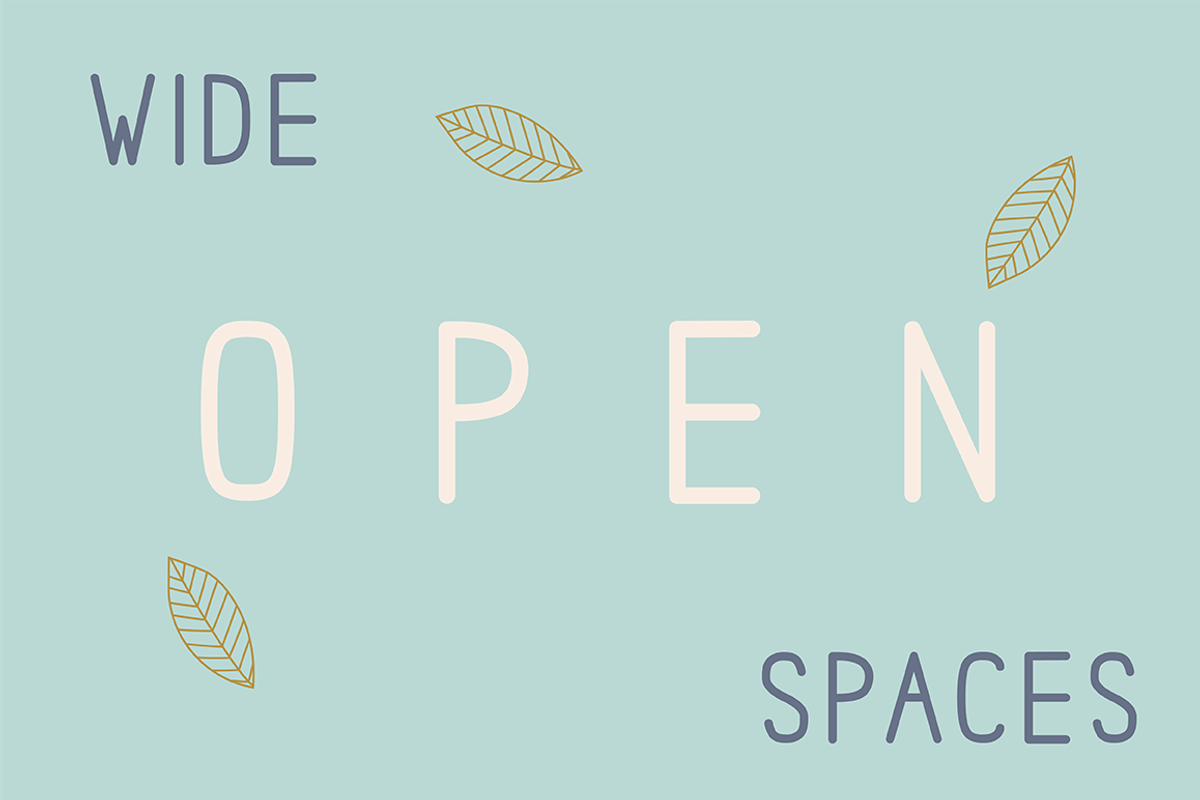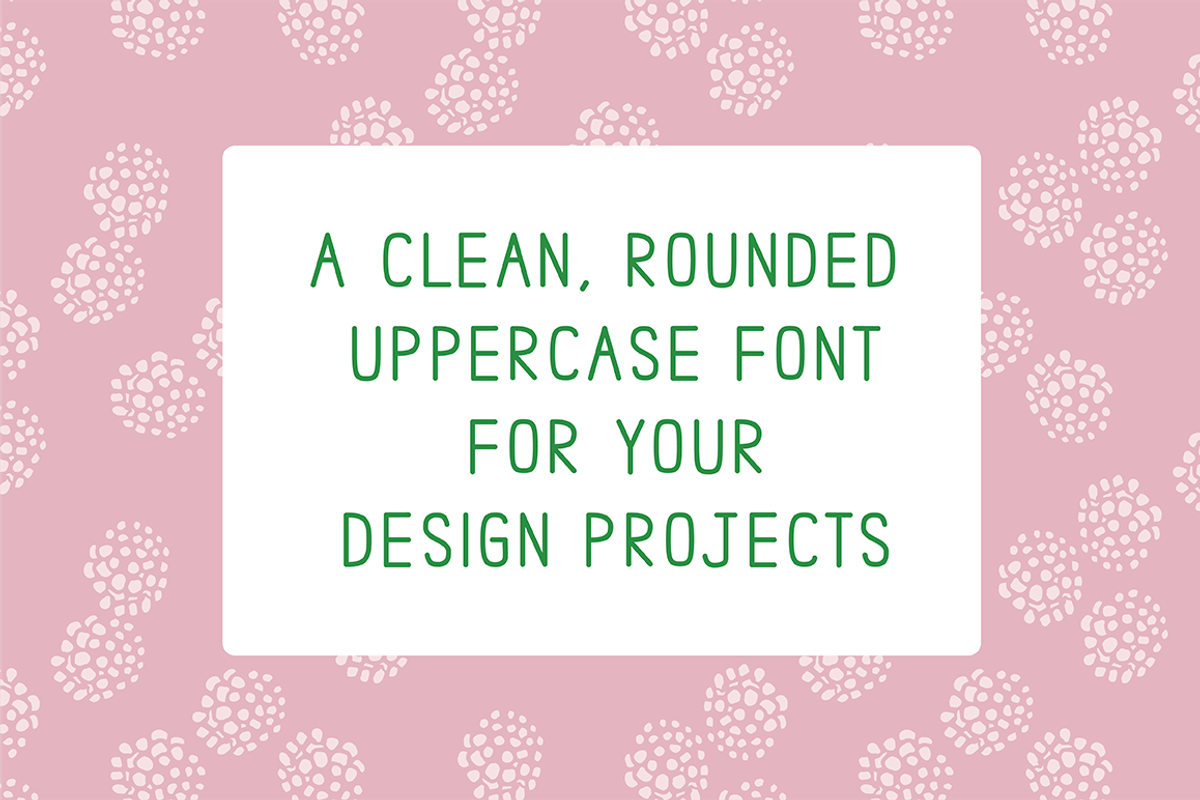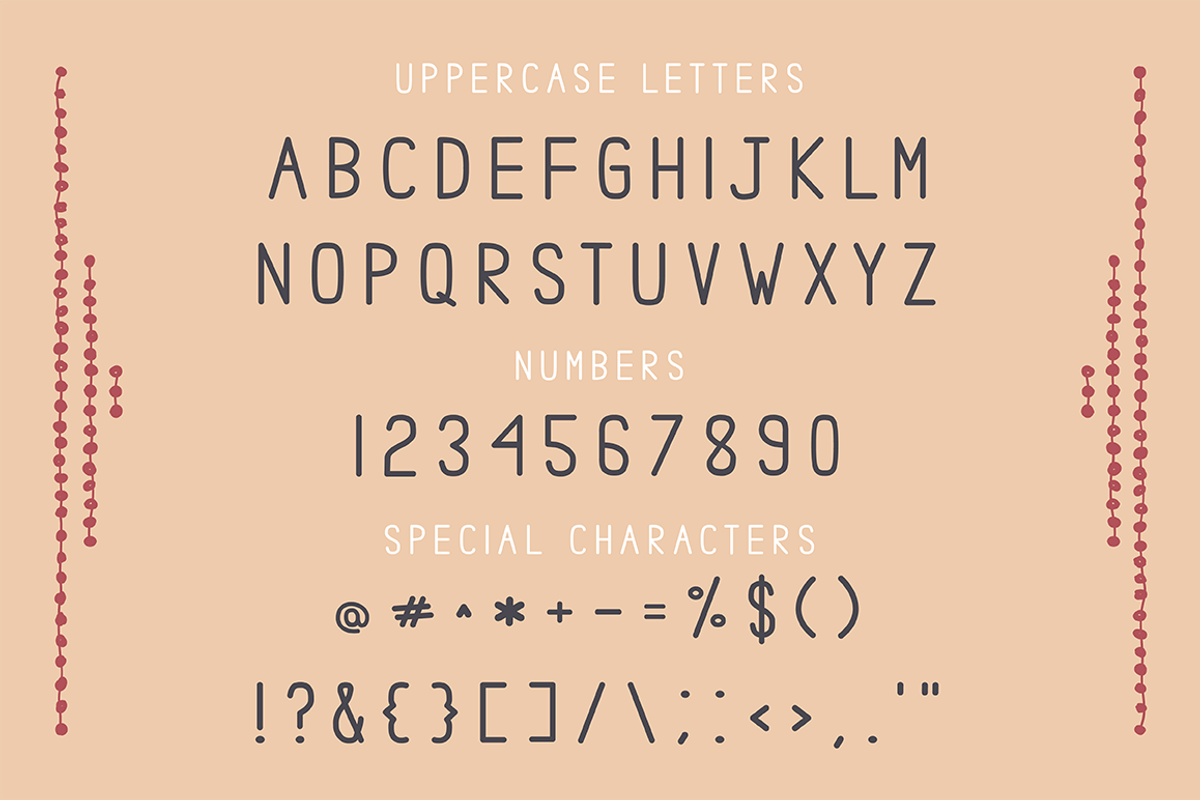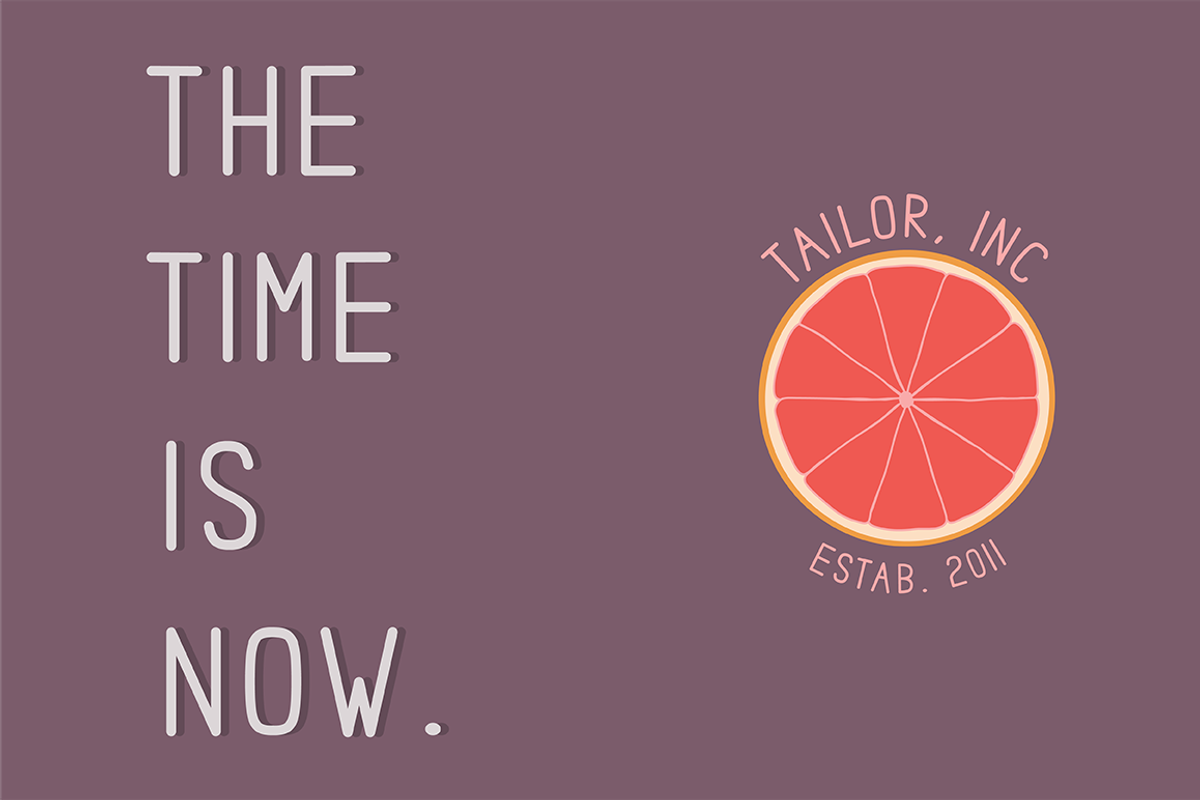
Tailored - Clean Uppercase Font
Tailored - Clean Uppercase Font by Christina Steward is a font selected for branding, posters, packaging, typography.
- Tailored is a simple, rounded sans serif font in uppercase letters for your stationery, personal branding, logos, product packaging and over
Tailored - Clean Uppercase Font by Christina Steward fits naturally into Branding, posters, packaging, typography.